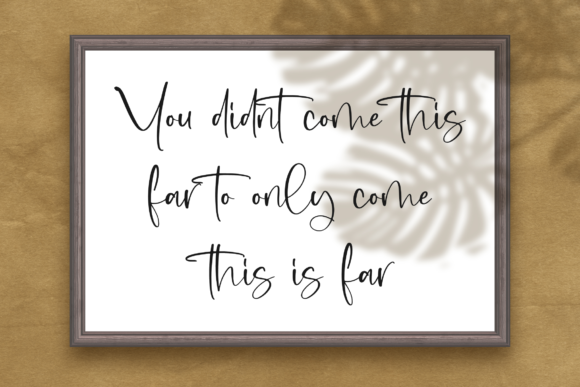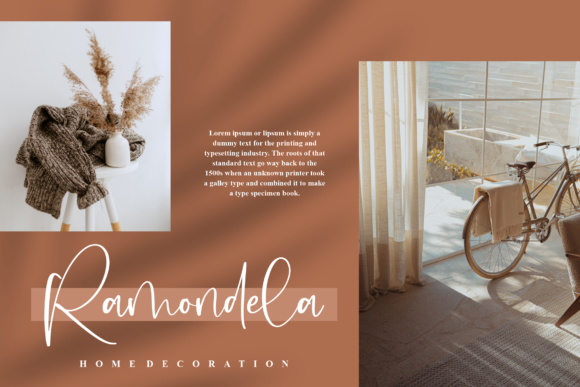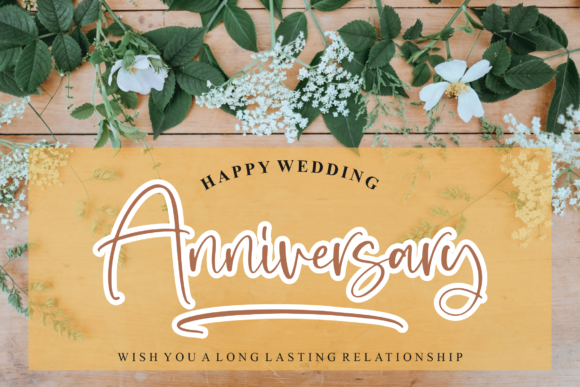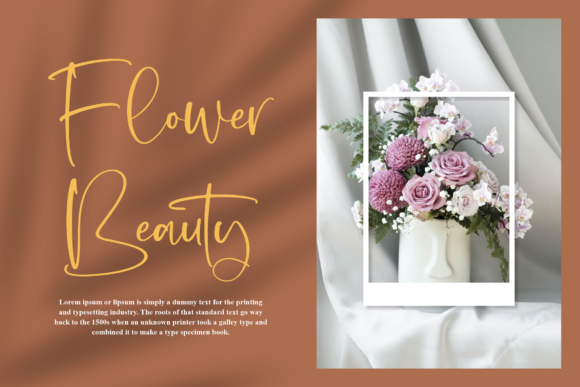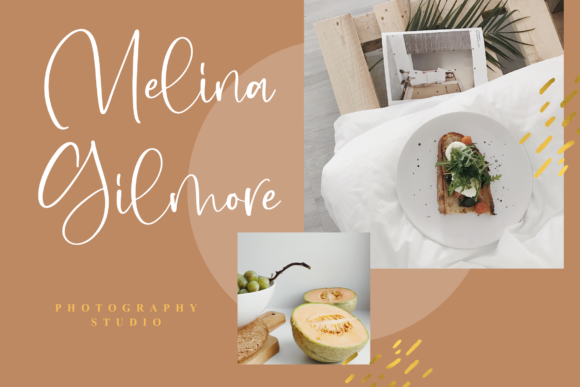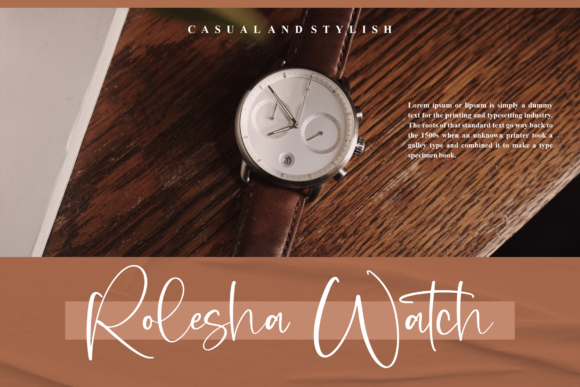
Introduction to Ralontta Font
Ralontta is a beautiful and refined script font.
It has a classy, elegant, and modern look that can be used for logos, branding, invitations, stationery, wedding designs, social media posts, and much more This font is PUA encoded which means you can access all of the amazing glyphs and ligatures with ease.
Key Features of Ralontta Font
Why Choose Ralontta Font?
Ralontta Font offers exceptional quality and versatility, making it a valuable addition to your design toolkit. Whether you’re creating for personal projects or commercial use, Ralontta Font delivers professional results.